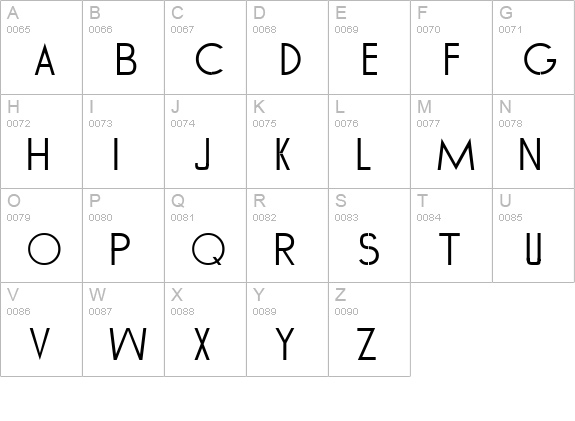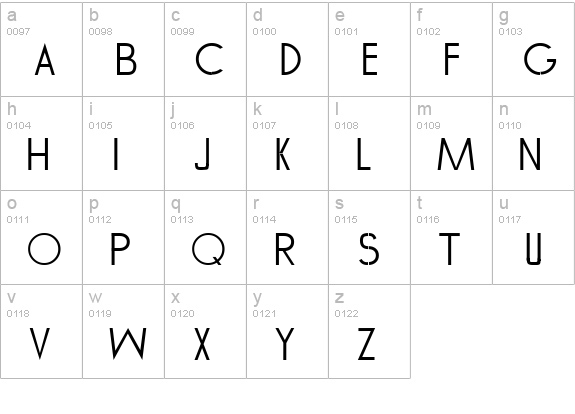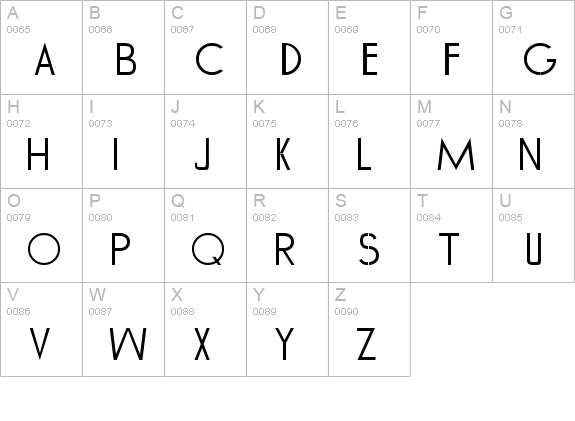
AF TOMMY HILFIGER Font Details
The AF TOMMY HILFIGER font is a sleek and modern typeface that exudes sophistication and style. With its clean lines and bold lettering, this font is perfect for creating eye-catching designs that command attention. Whether you're designing a logo, poster, or website, AF TOMMY HILFIGER is sure to make a statement. The best part? This font is available for free download at FontsMarket.com, making it easy for you to incorporate it into your projects without breaking the bank. Don't miss out on the opportunity to add this stunning font to your collection and take your designs to the next level.